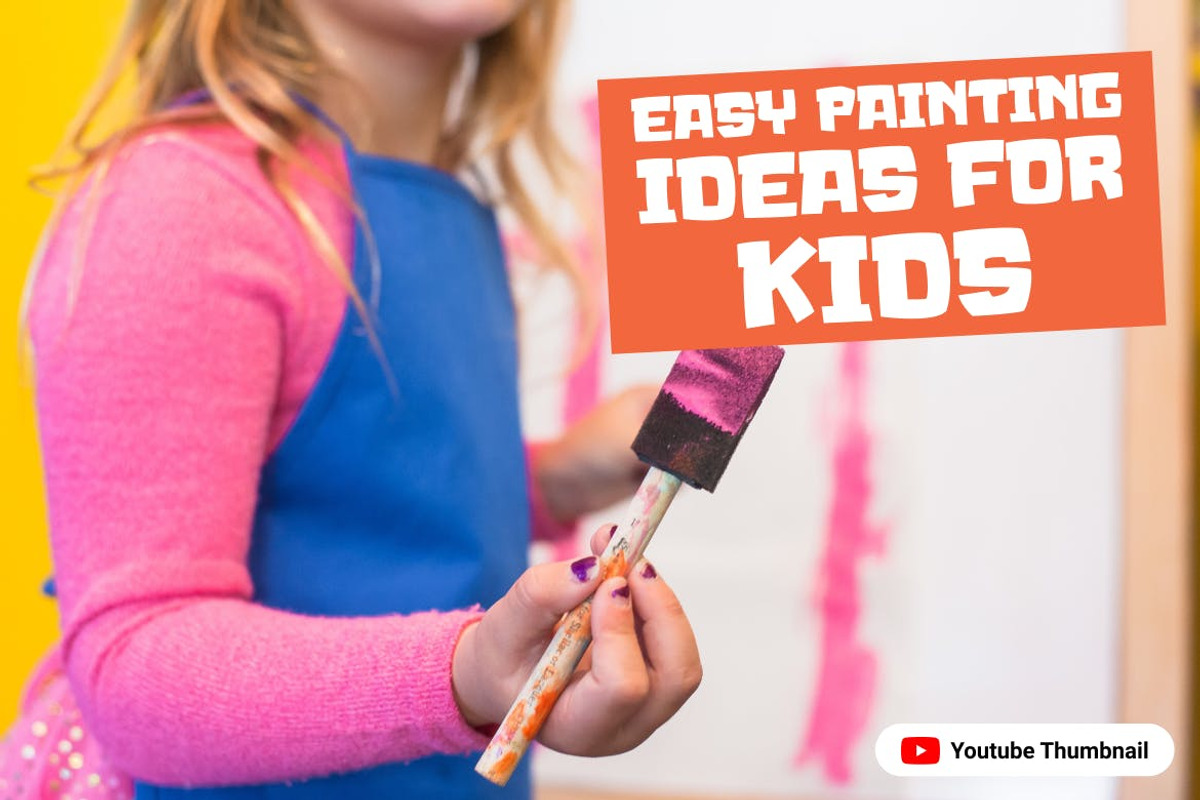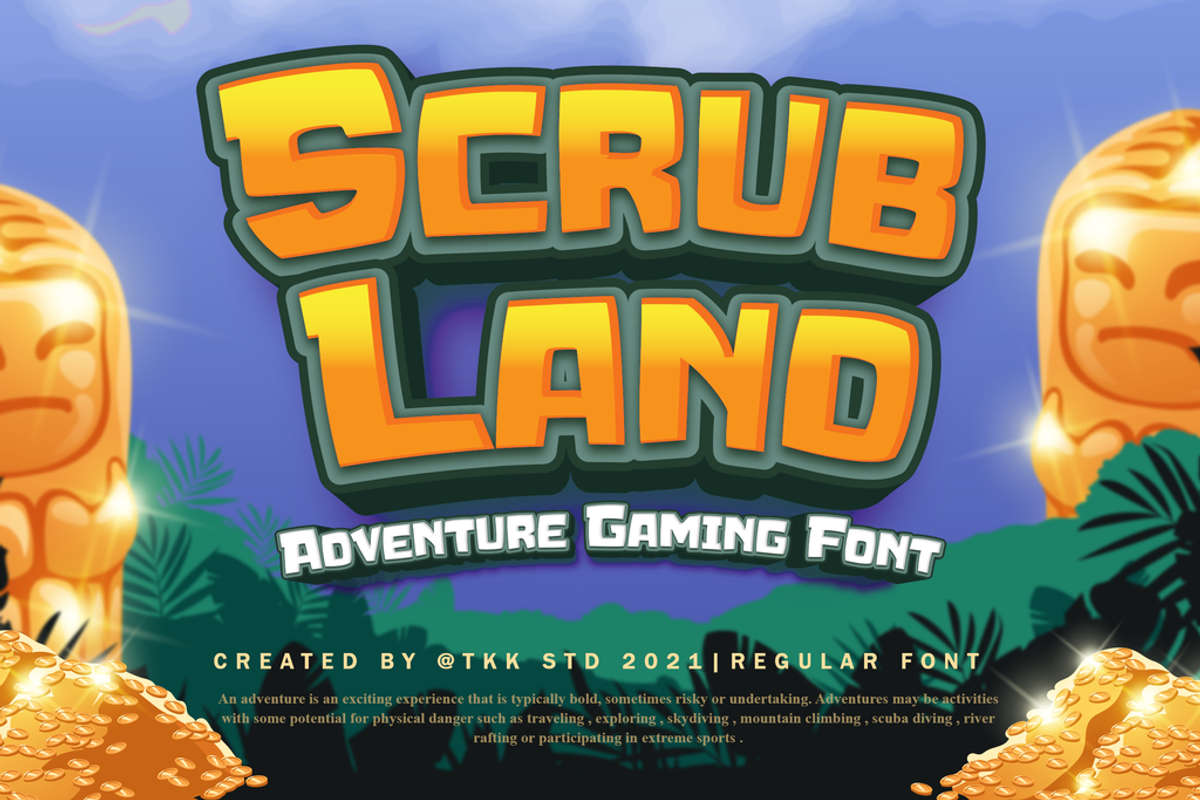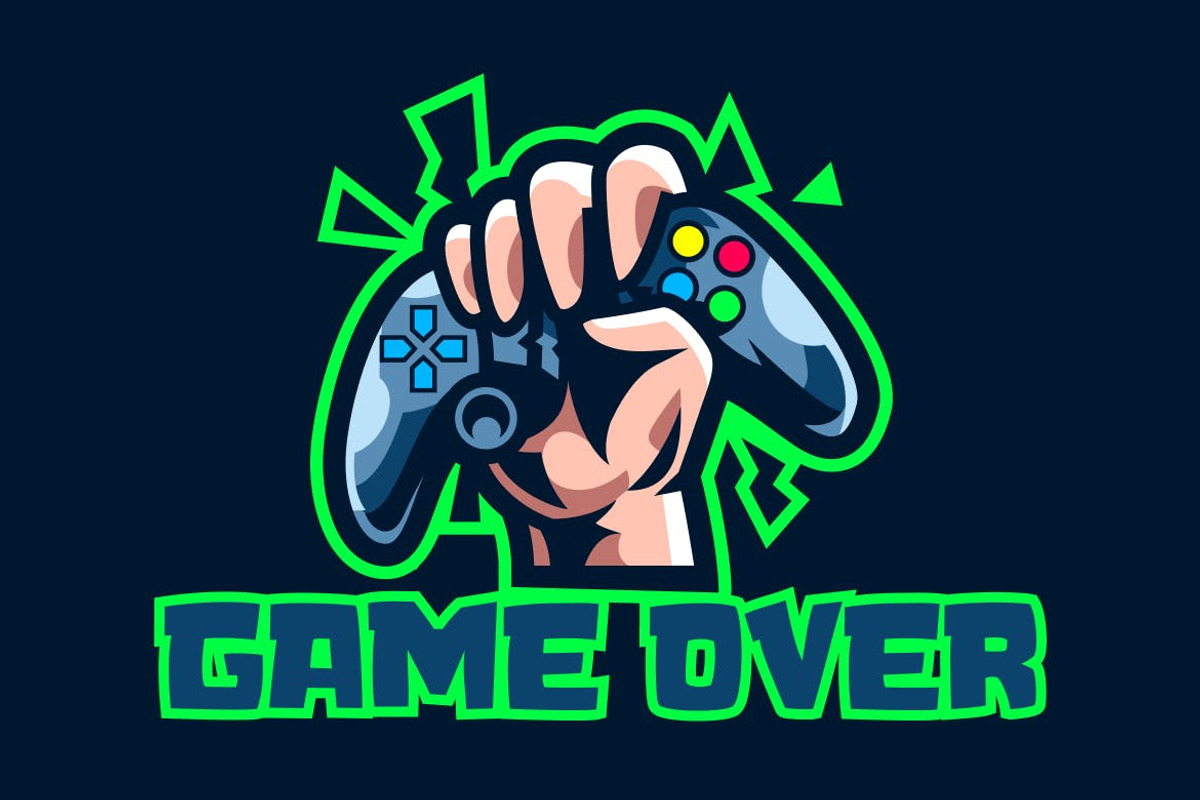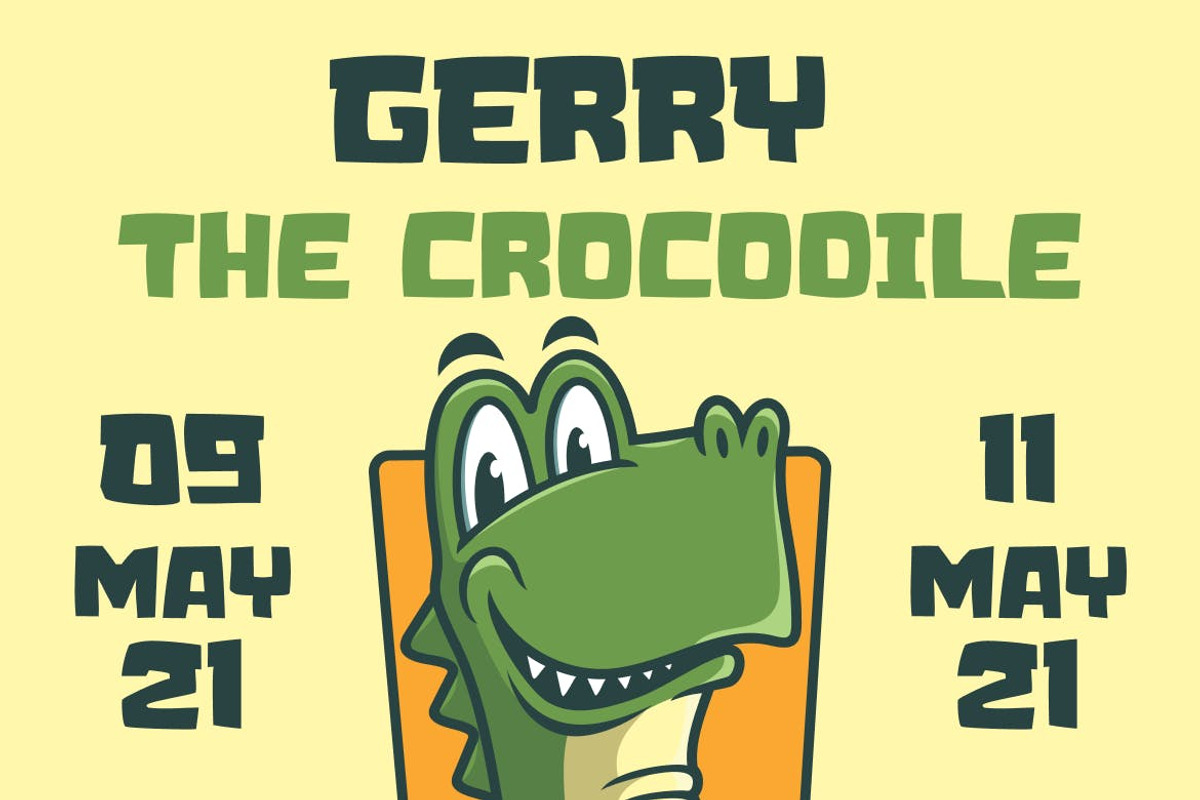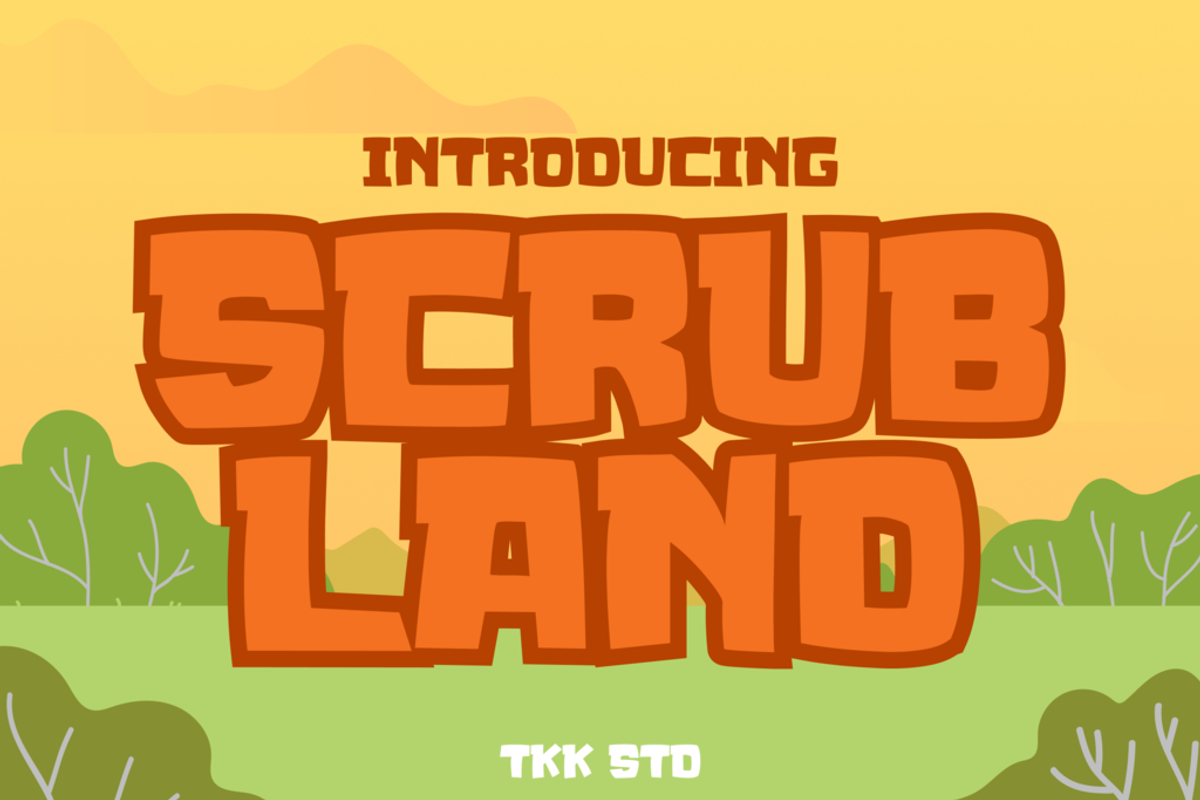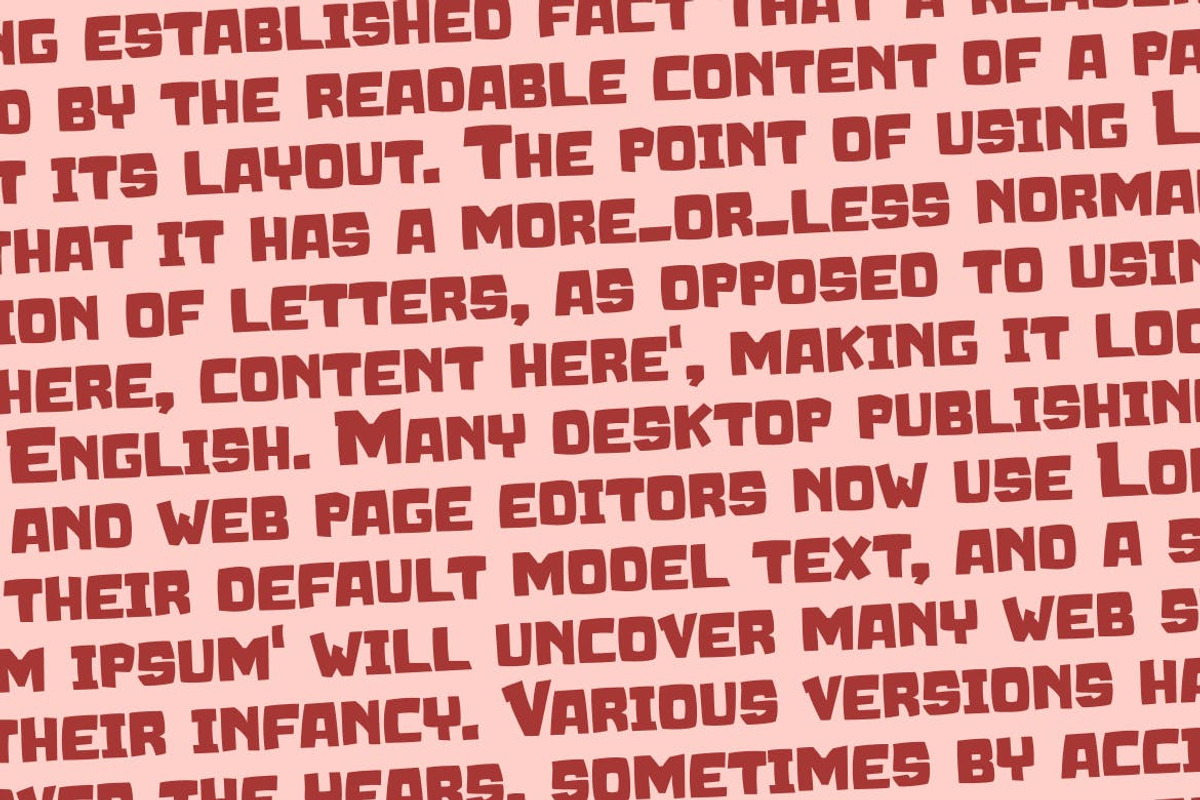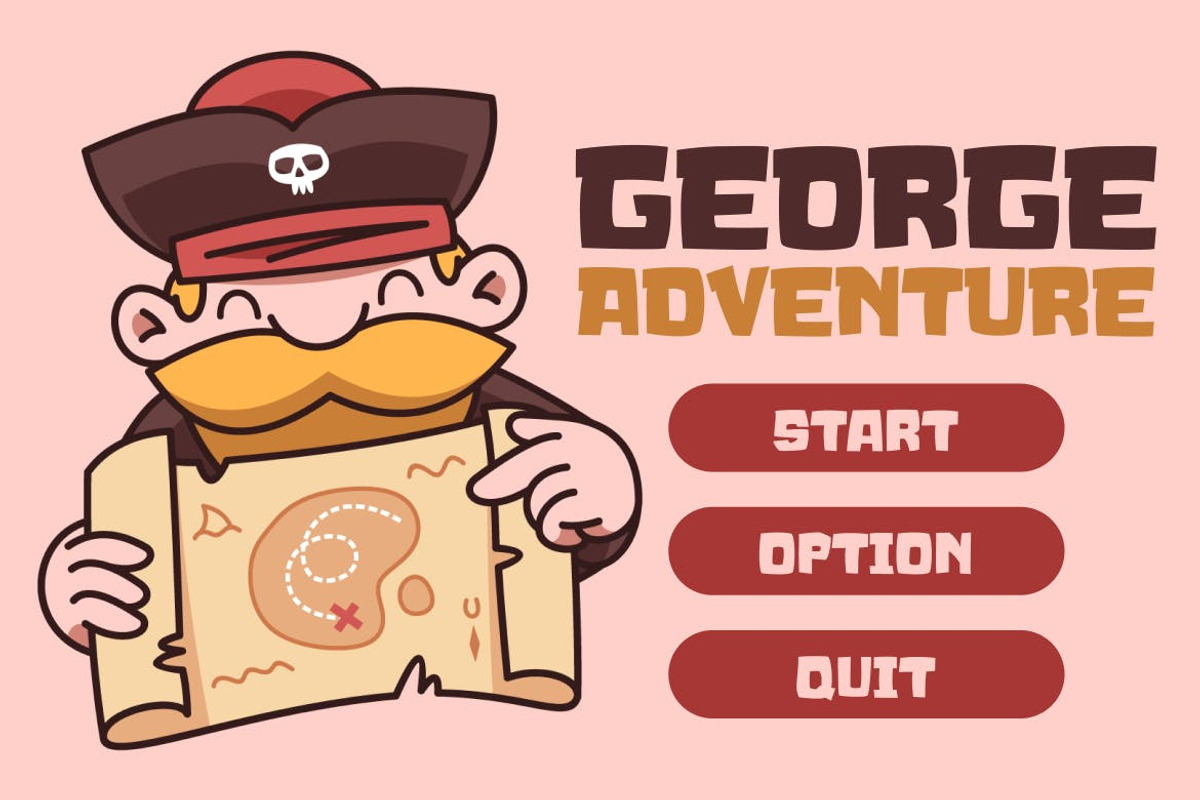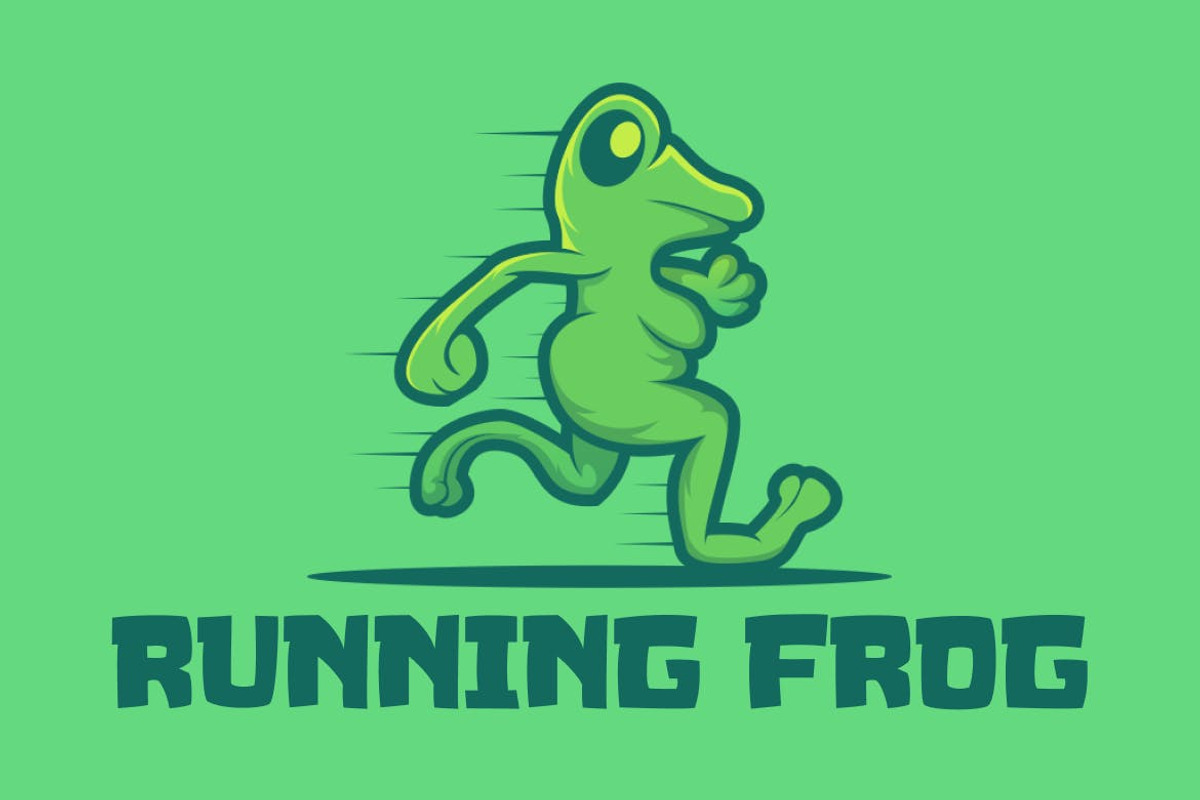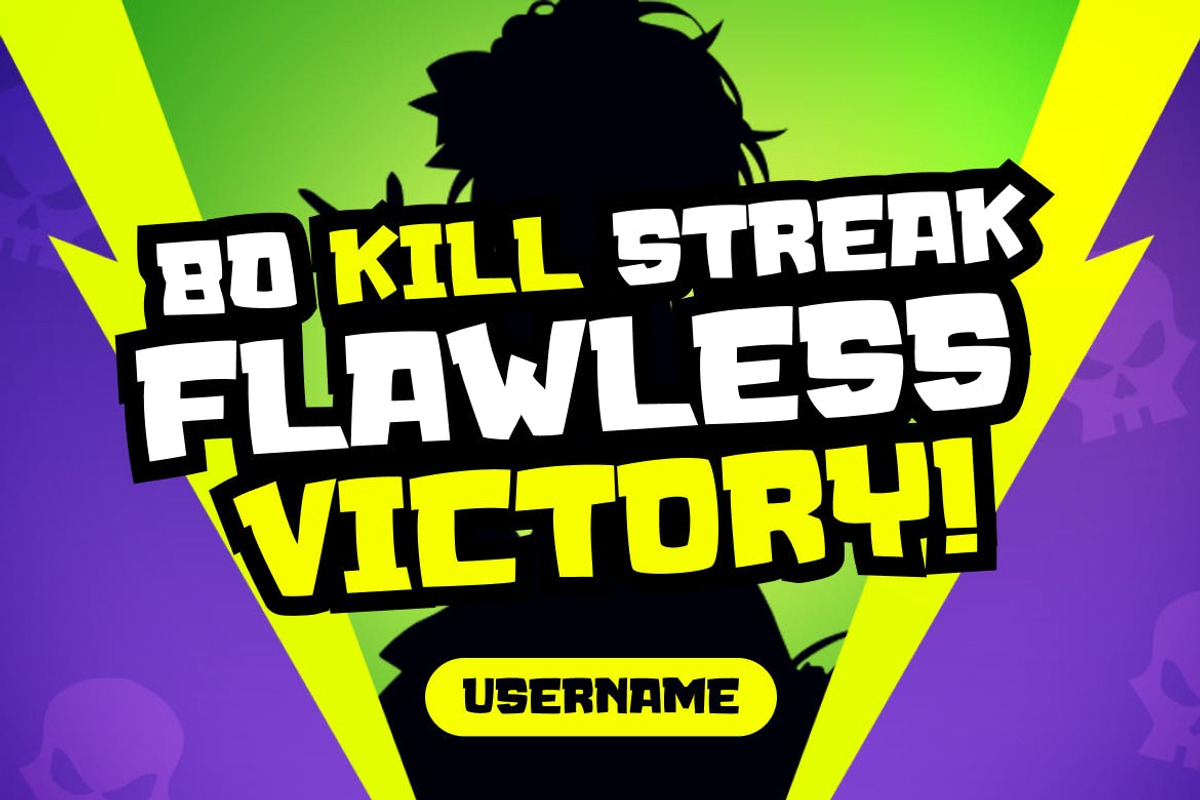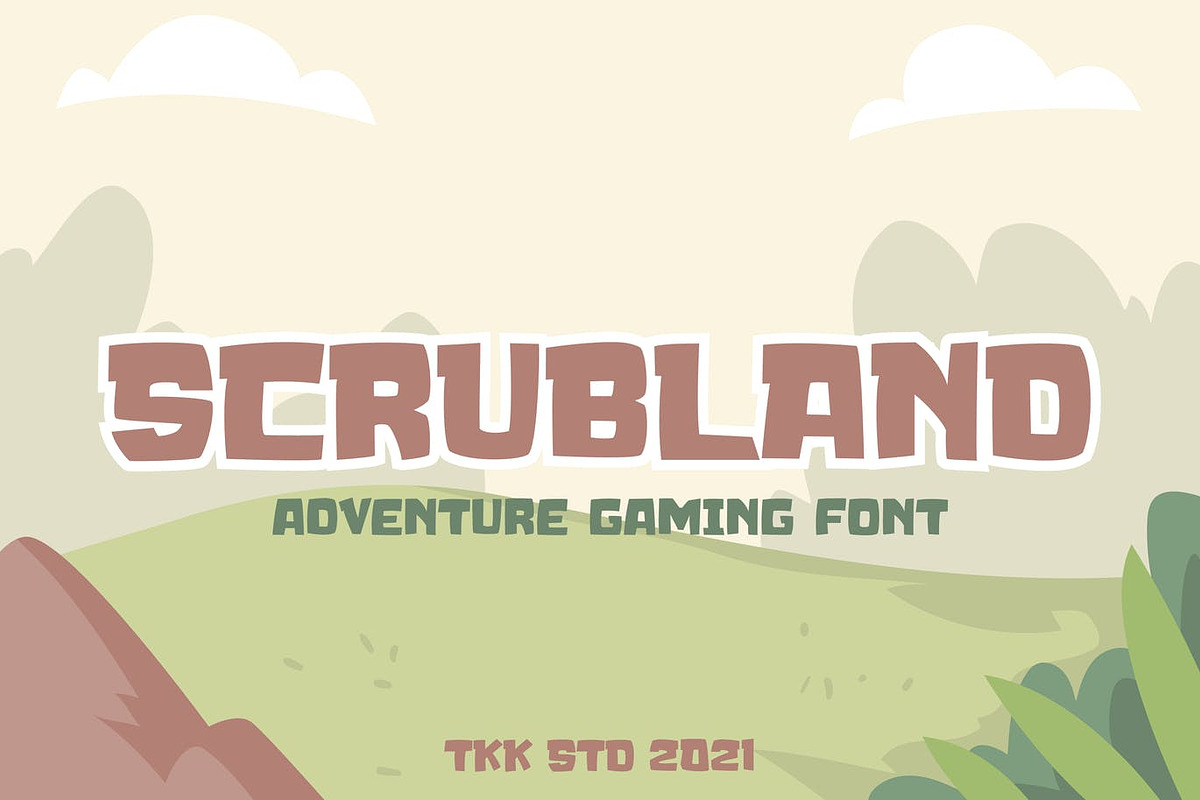
SCRUBLAND - Gaming Font
Scrubland gaming font will emphasize the adventurous side.
Suit perfectly for Online Games, poster, movie title, fast food menu, magazine, youtube covers, youtube thumbnails, social media page covers and so on…